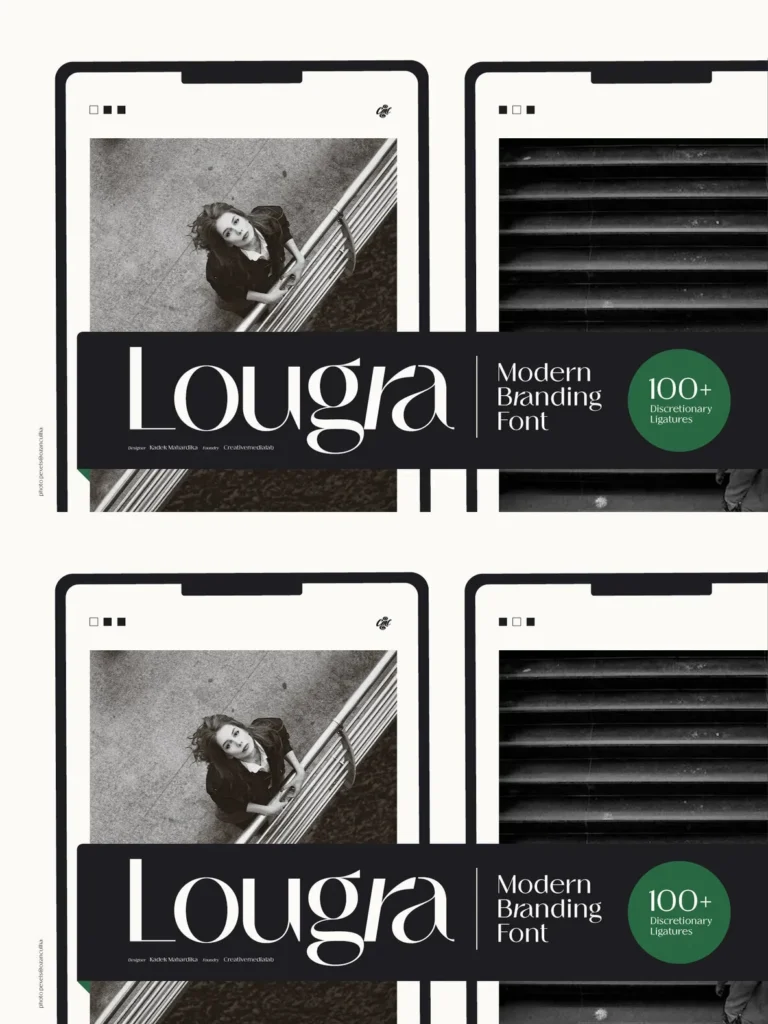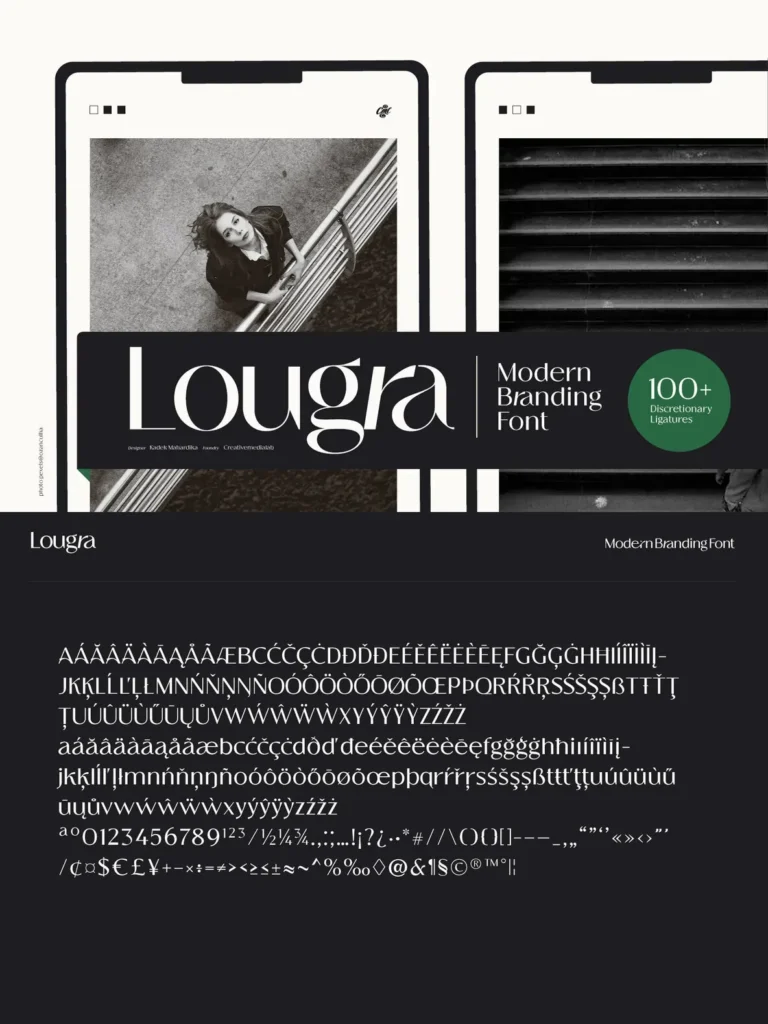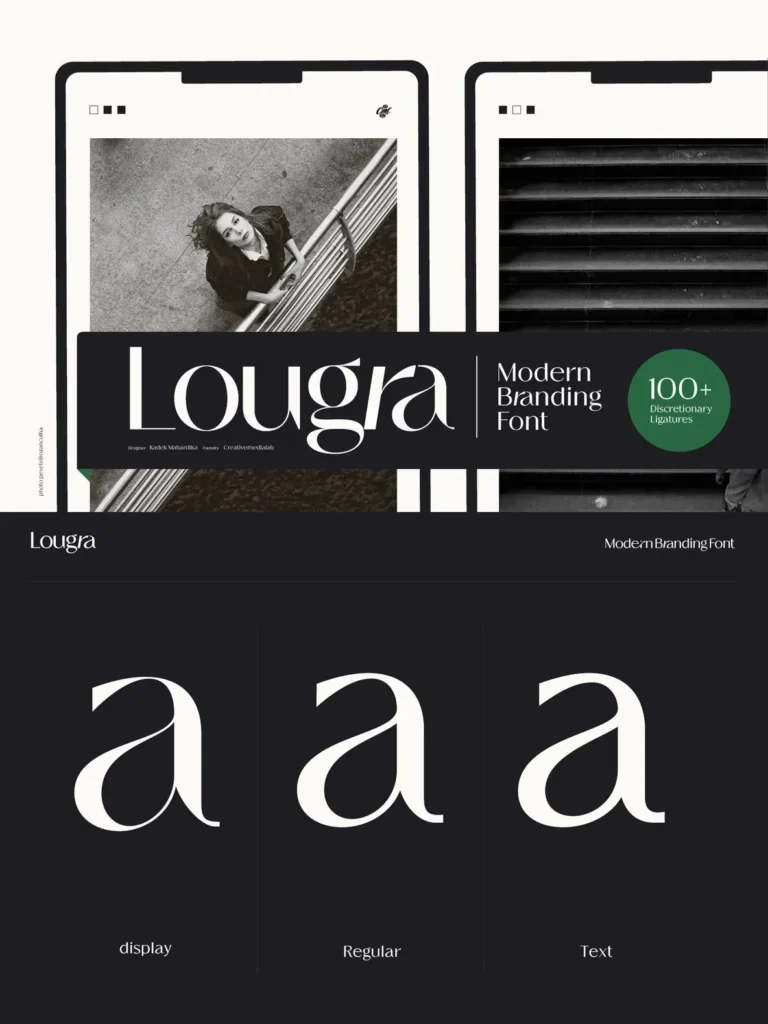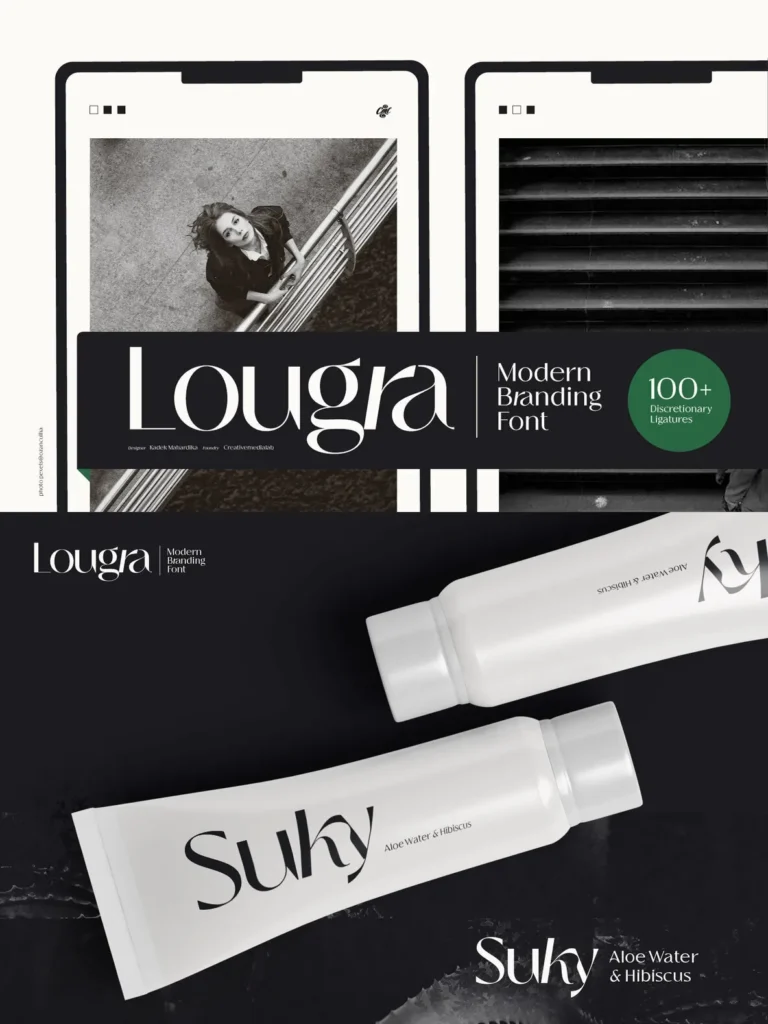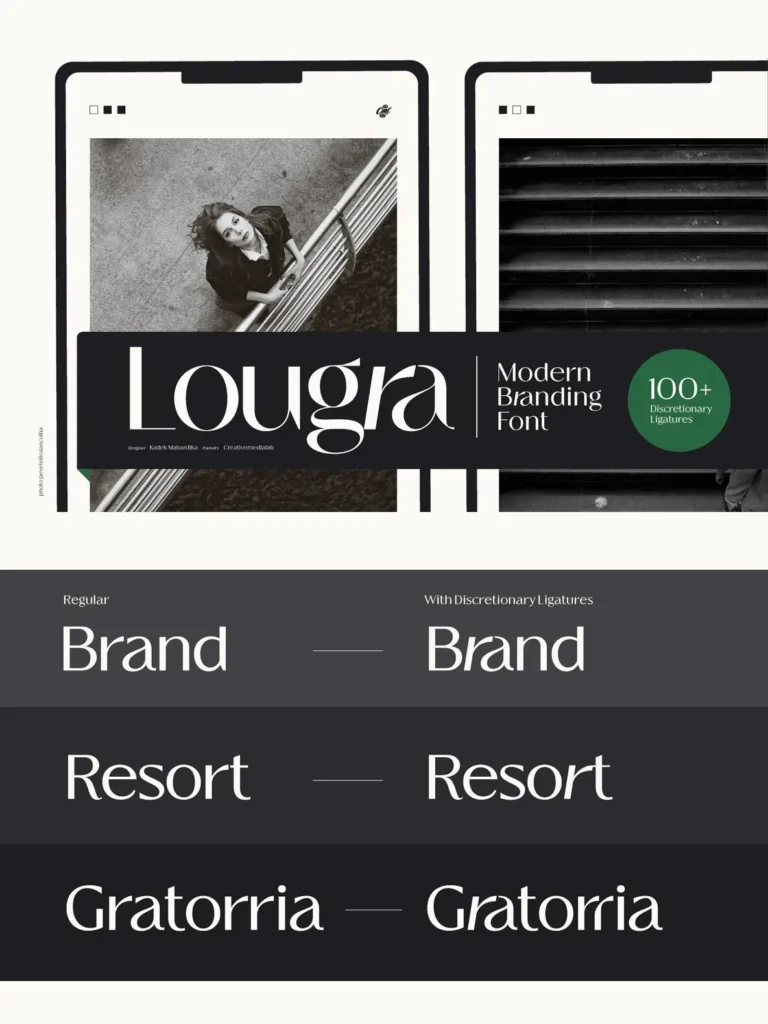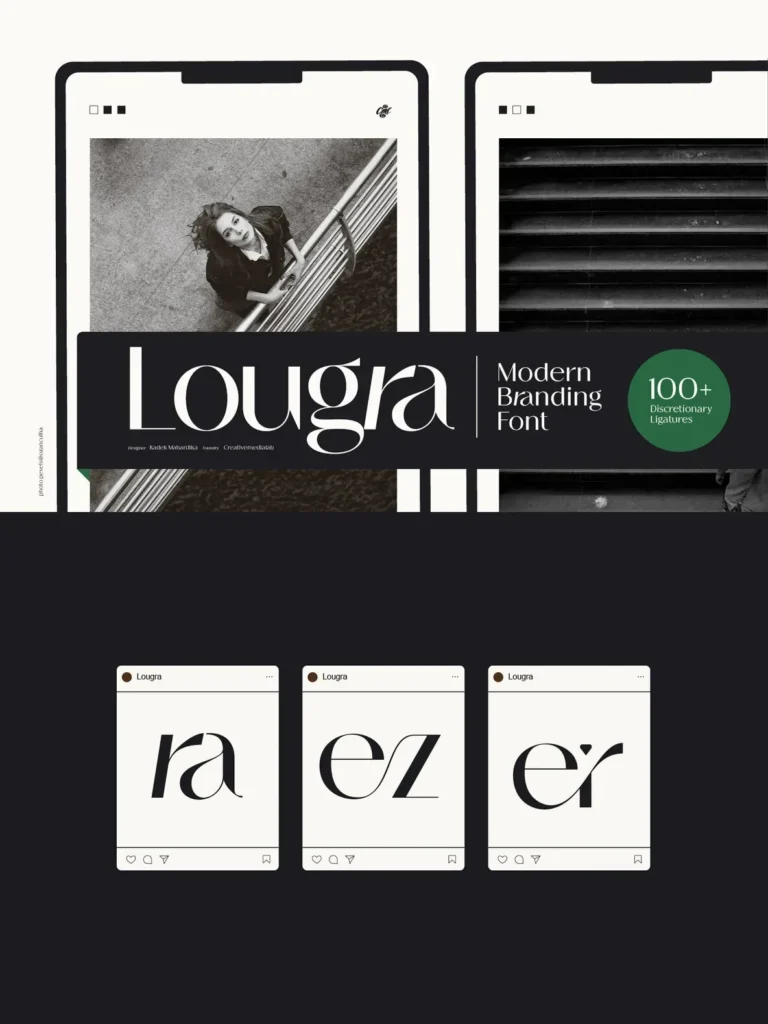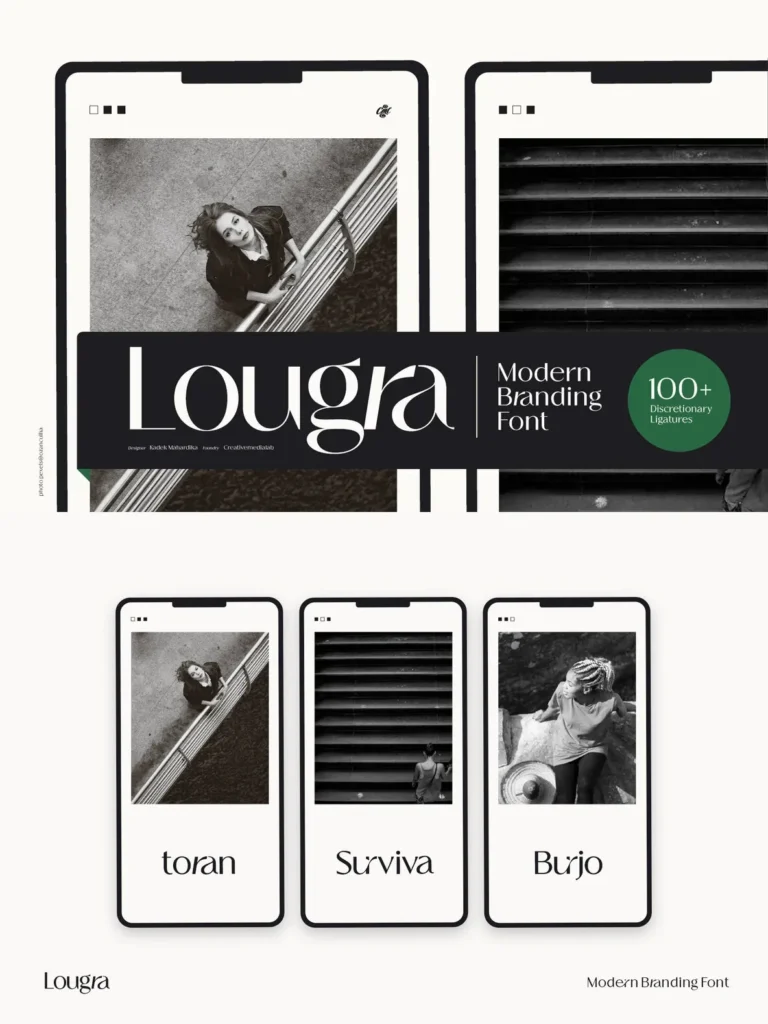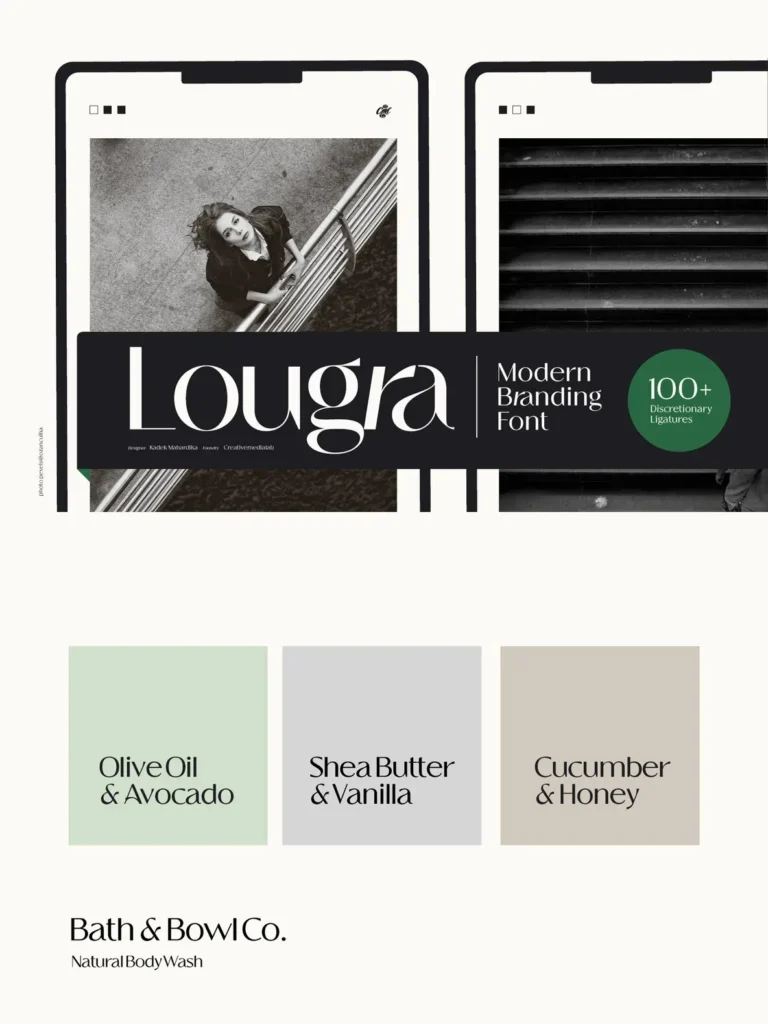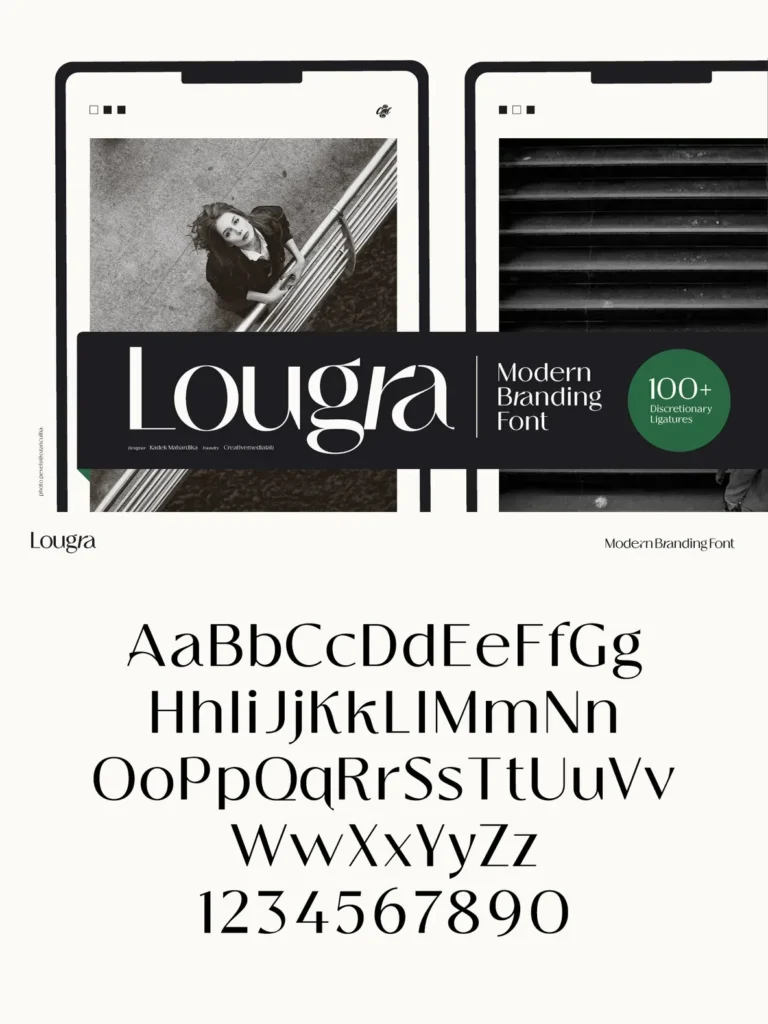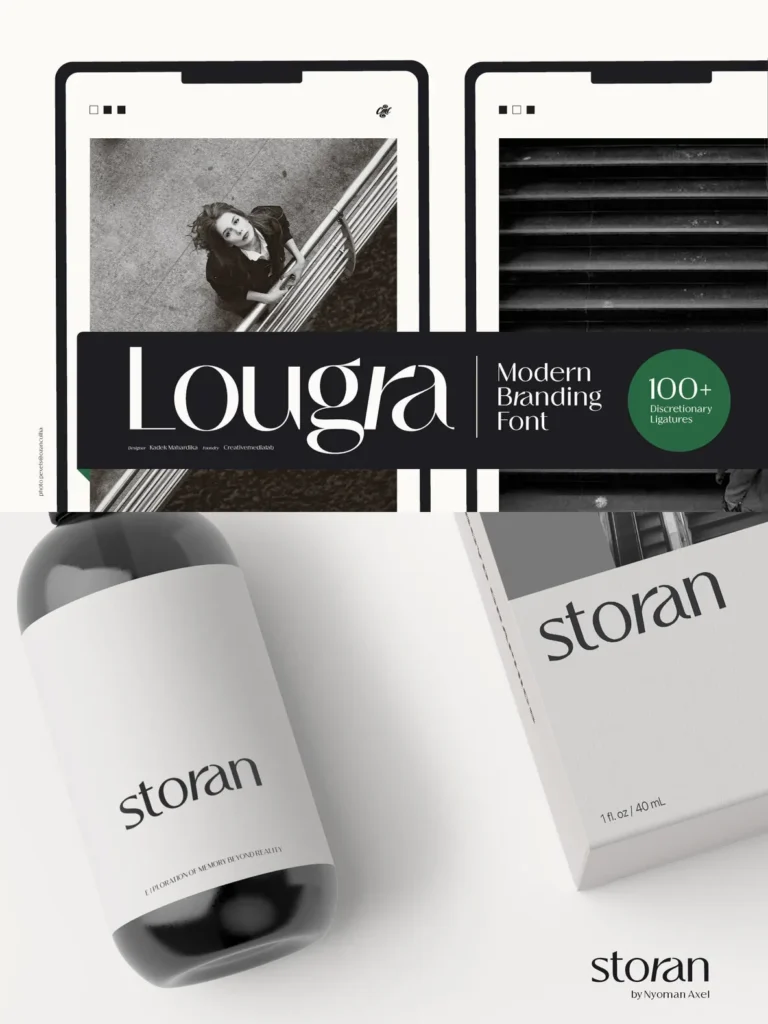
Lougra is an elegant and minimal font with more than 100 ligatures. Three weights contrast options: display, regular and text. This Font is best for branding, webdesign project, logo and much more. comes with variable format as well as multilingual support, numbers, and currency symbols.